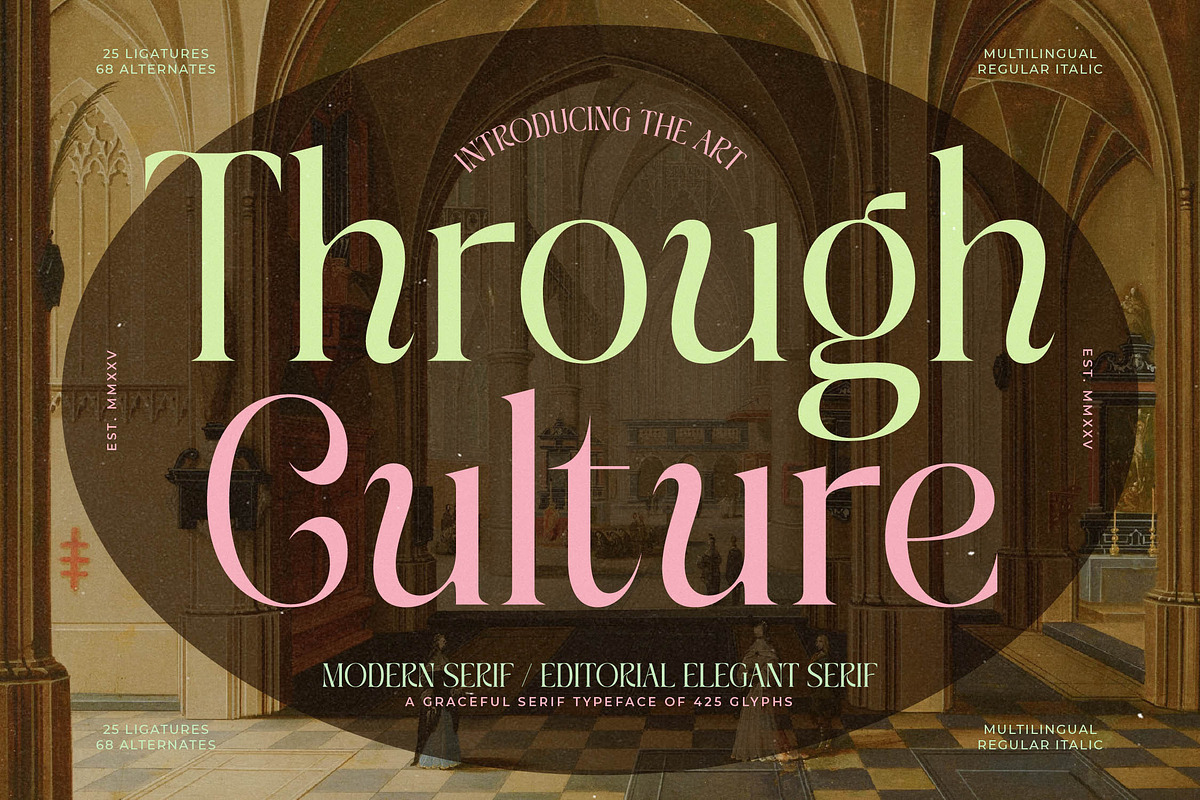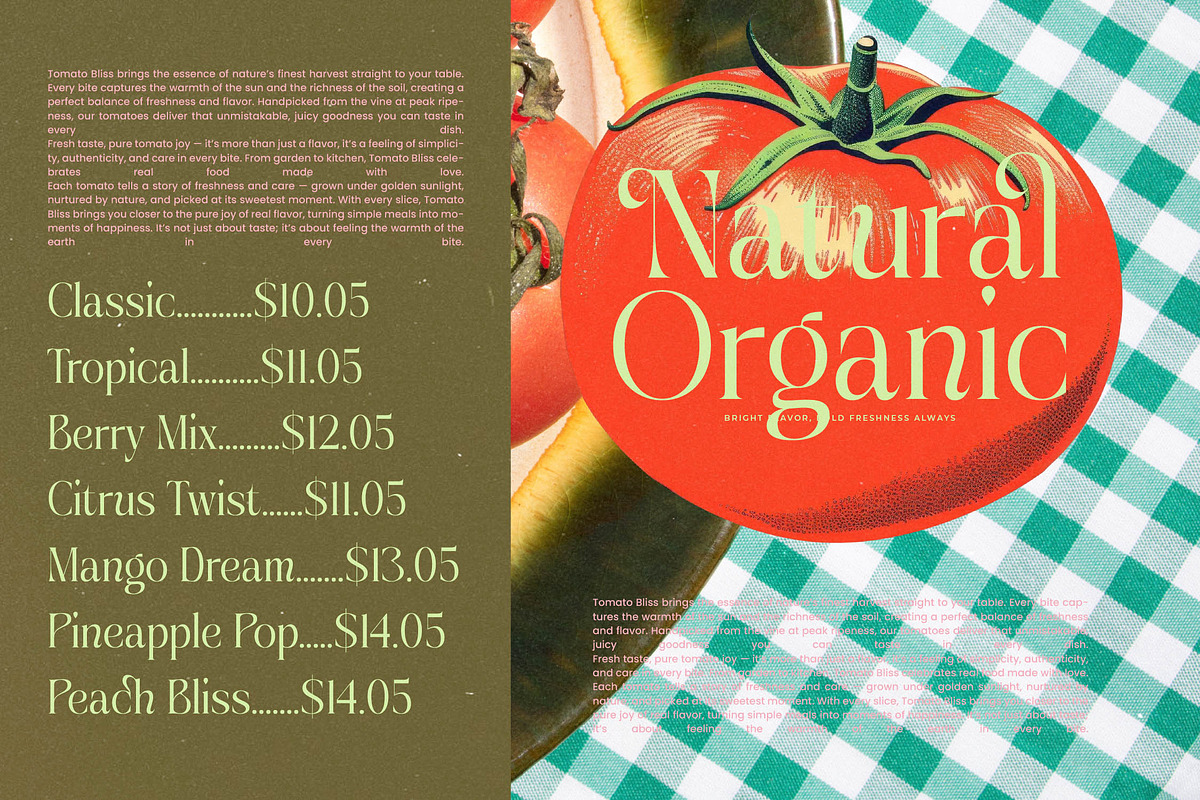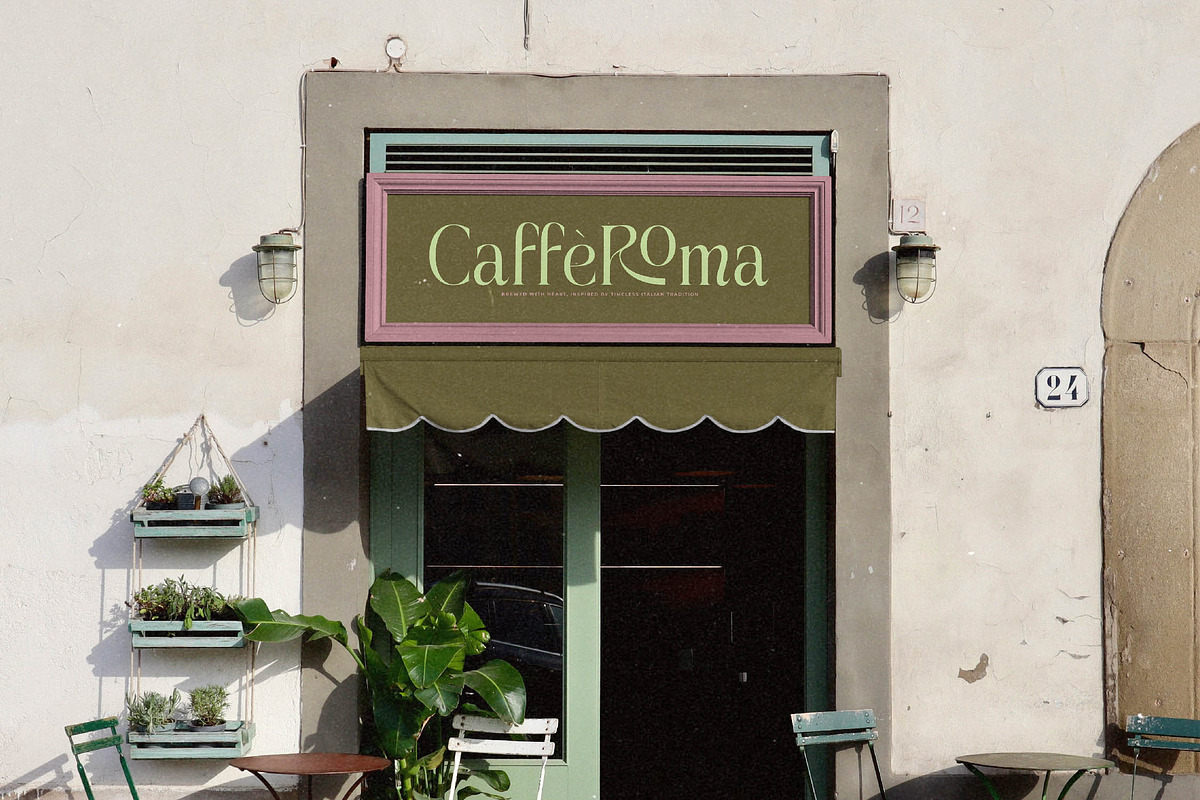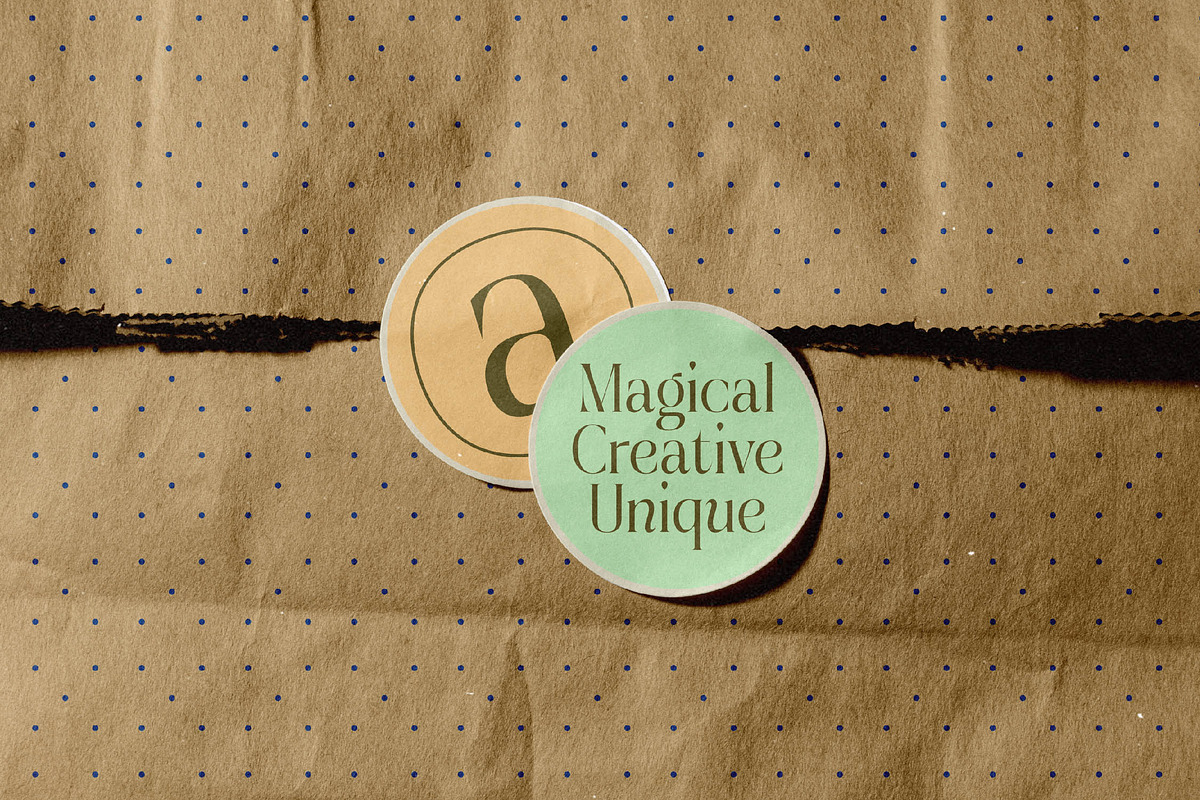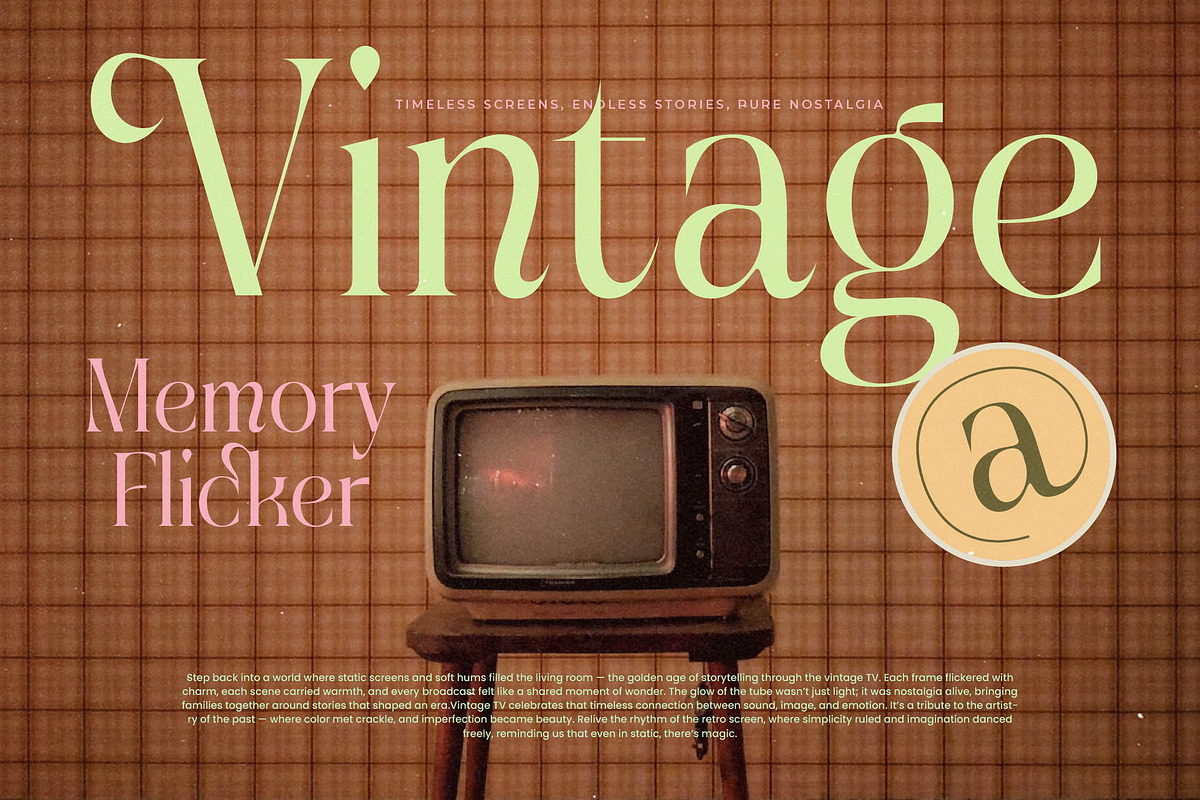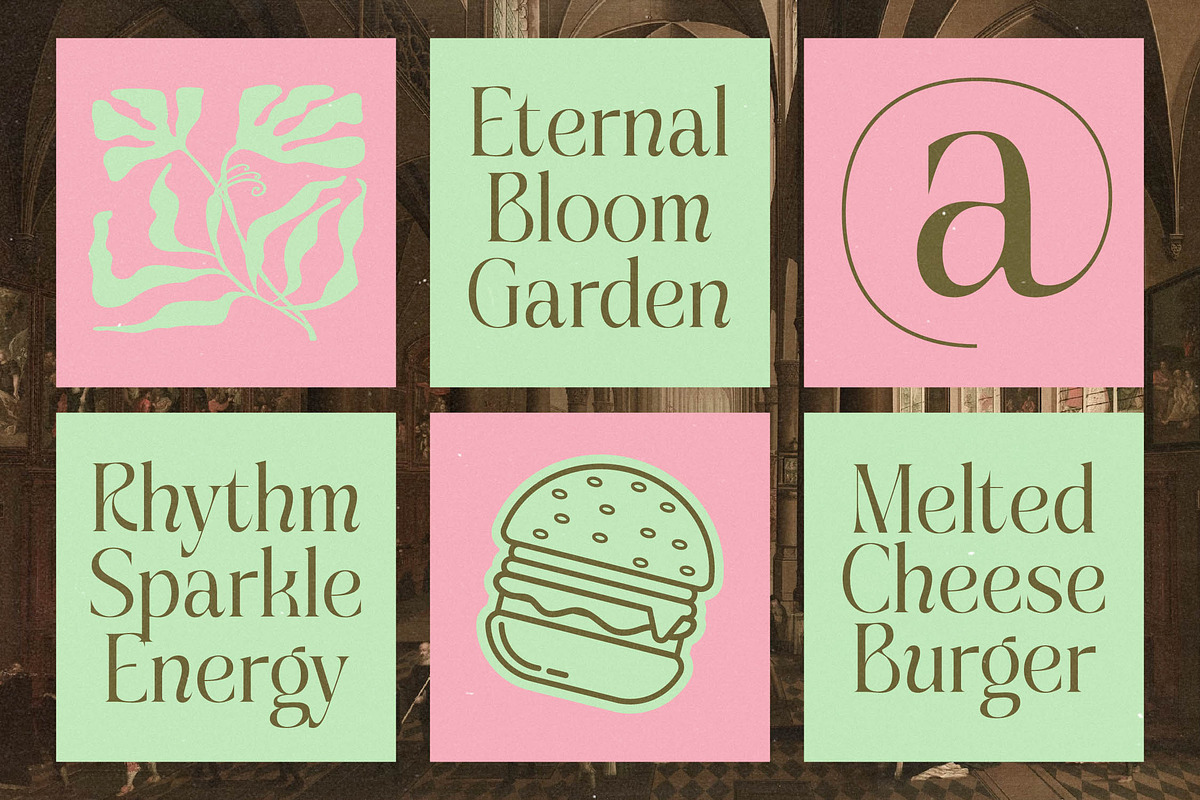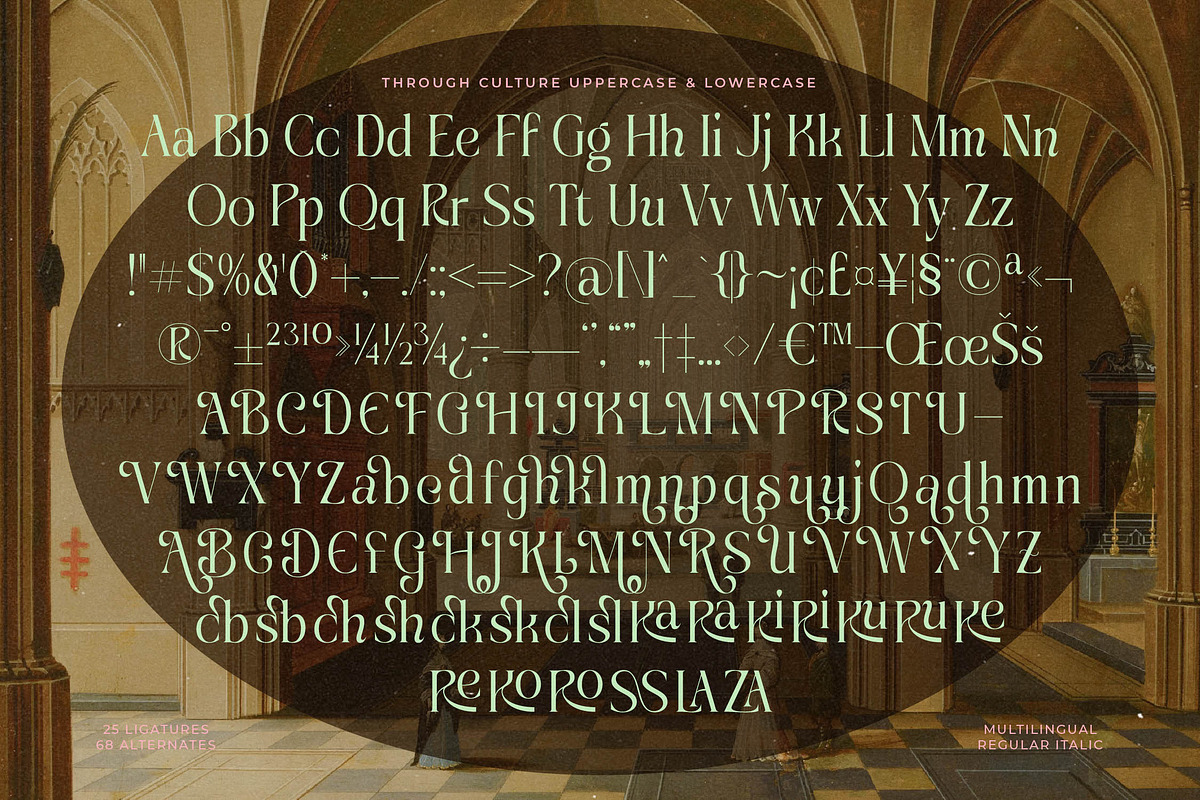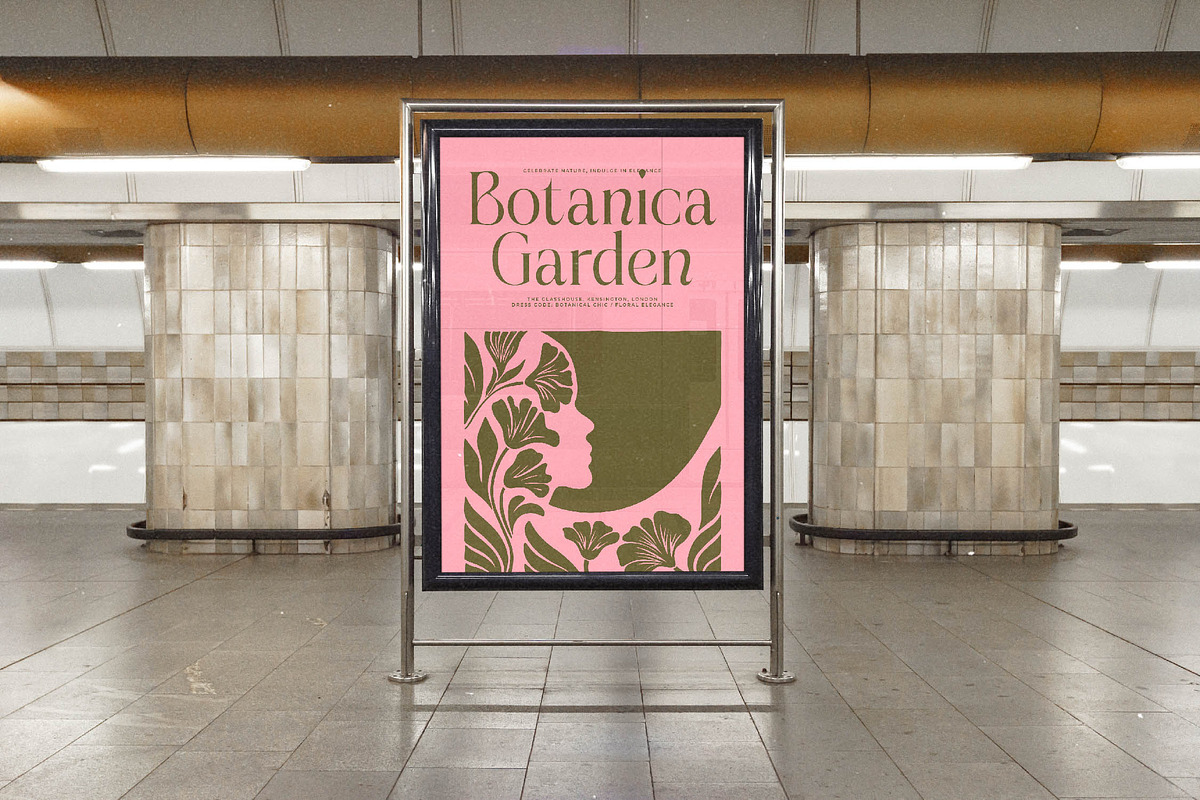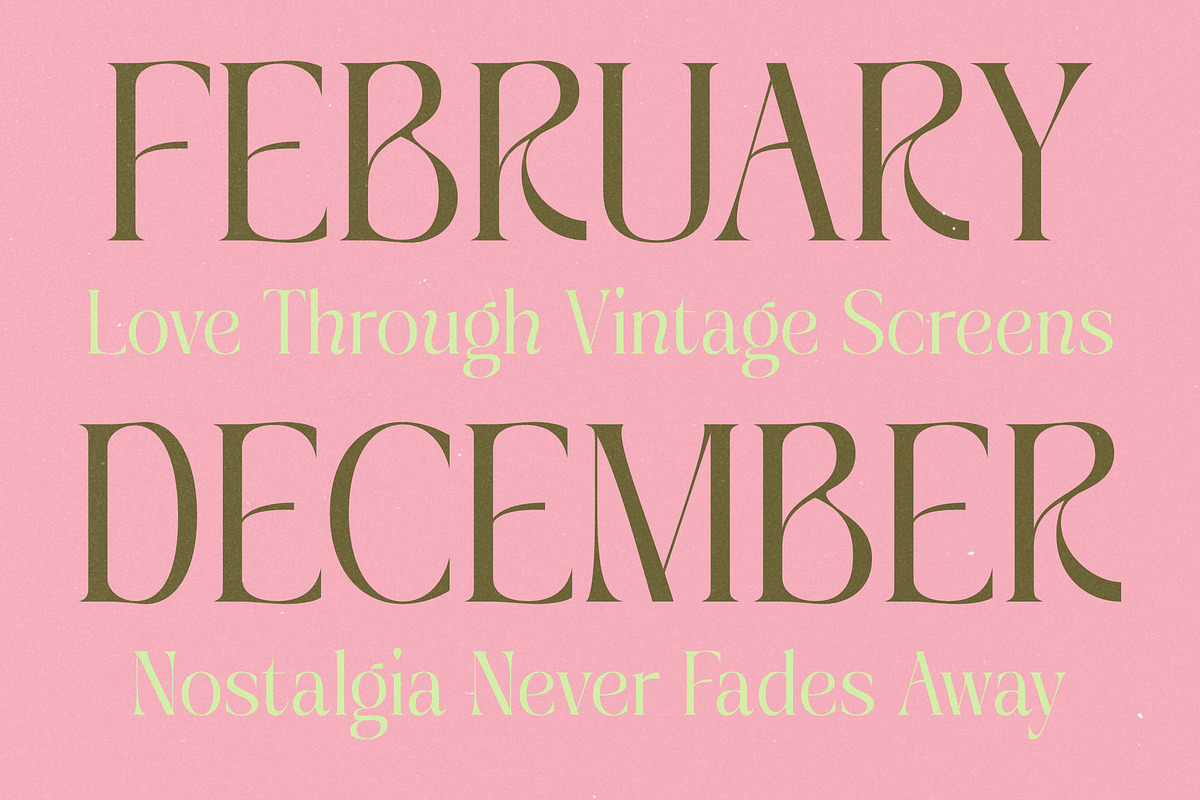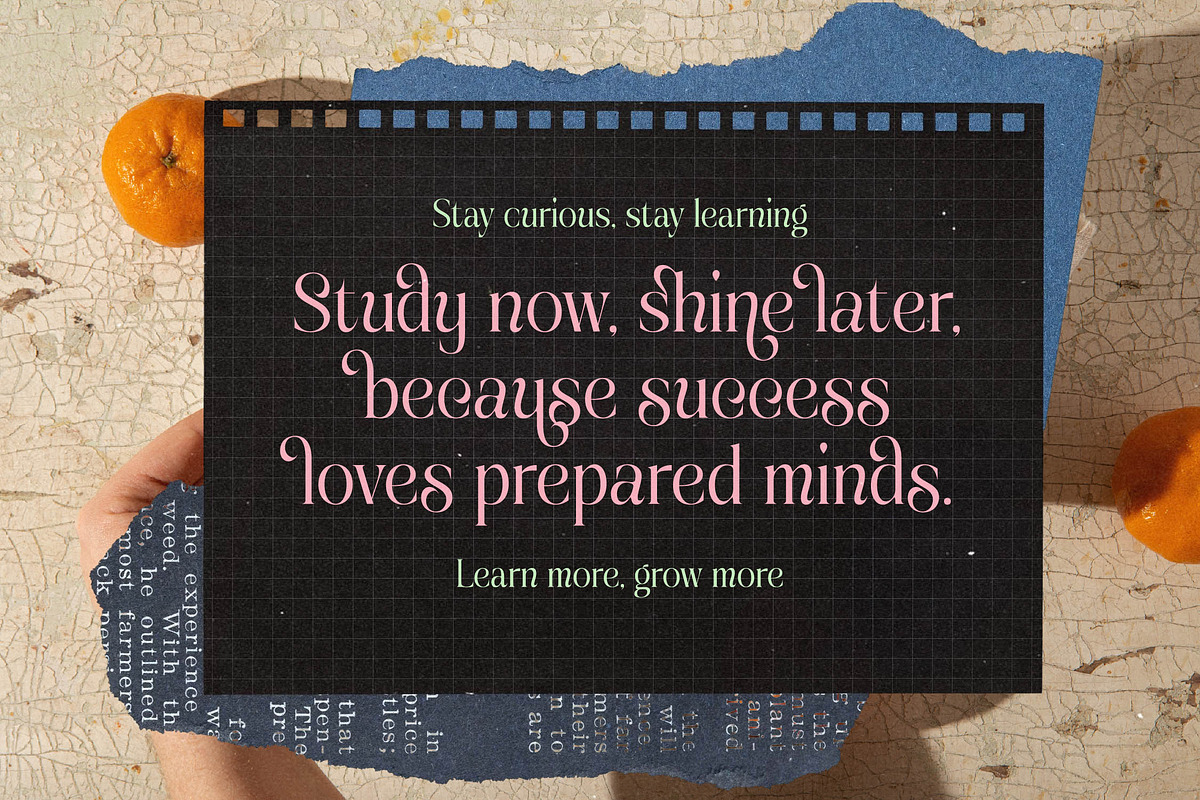
Through Culture Modern Serif
Elevate your creative vision with Through Culture, an artistic masterpiece designed to redefine sophisticated typography. This typeface blends classical proportions with a contemporary flair, ensuring your projects resonate with timeless elegance.
Inspired by the grand architecture and intricate details of historical art galleries, this font captures a bridge between the past and the future. Every curve and stroke reflects a curated aesthetic, inviting viewers into a world where design meets high-level craftsmanship.
Exuding an aura of prestige, this modern serif display is the ultimate choice for designers seeking luxury typography that commands attention. Its high-contrast serif construction provides a striking branding impact, making it the definitive editorial font for high-end digital and print media.
Perfectly aligned with the current modern serif trend, this typeface brings a fresh perspective to the landscape of editorial display fonts. It satisfies the growing demand for character-driven typography that breaks away from the mundane, offering a unique visual identity for trendsetting brands.
From high-concept logo design to cohesive visual branding, this font excels across diverse applications including premium editorial layouts and luxury packaging. It is equally at home in romantic wedding stationery or high-glamour fashion magazines, providing versatility for every creative endeavor.
Unlock endless creative possibilities with an extensive library of 425 glyphs, featuring unique ligatures and decorative alternates that add a custom-lettered feel. Complete with elegant swashes and full multilingual support for international characters, this font ensures your message is heard across the globe.
Numerals
Punctuations (OpenType Standard)
Accents (Multilingual Characters)
Ligatures and Alternative Style Stylistic Set